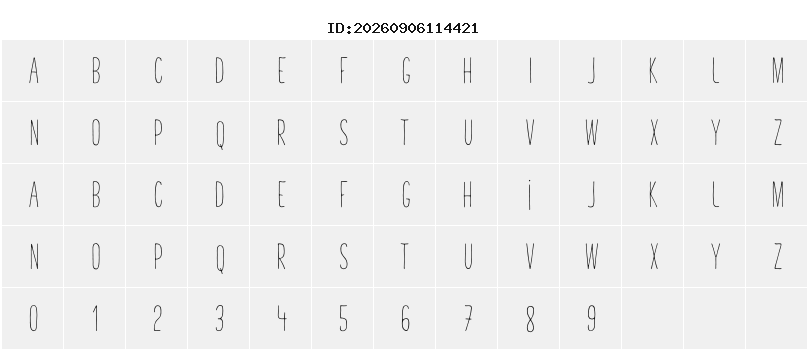
Tasty Birds Preview
• Font Name: Tasty Birds
• Font Style: Sans
• Font ID: YoussefHabchi: Tasty Birds Sans: 2016
• Full Font Name: TastyBirds-Sans
• PostScript Name: TastyBirds-Sans
• Designer: Youssef Habchi
• Manufacturer: Youssef Habchi
About Tasty Birds.otf
Tasty Birds.otf is a modern, elegant sans-serif font designed for ultimate readability and visual harmony. Perfect for branding, headlines, web design, and print materials.